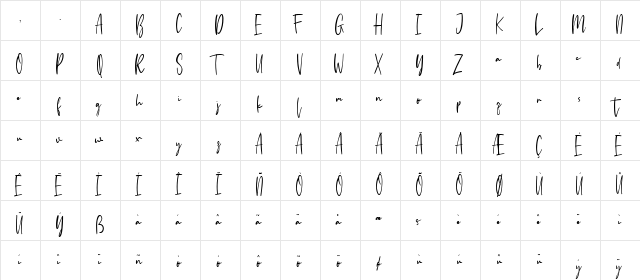
Moonlight In Tokyo Demo Regular
Design Context for Moonlight In Tokyo Demo Typeface
Moonlight In Tokyo Demo is a composed and adaptable typeface that performs quietly and consistently across a wide range of design contexts. The delicate stroke weight brings airiness and refinement to layouts.